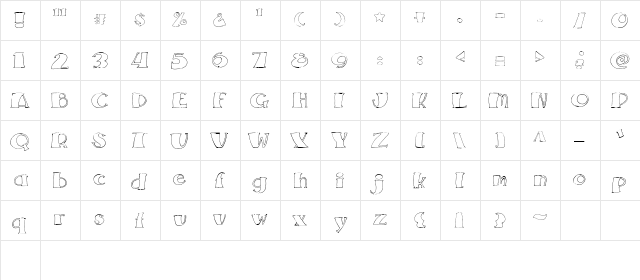
CK Baby Bug Plain Regular
Design Context for CK Baby Bug Plain Typeface
CK Baby Bug Plain is a composed and adaptable typeface that performs quietly and consistently across a wide range of design contexts.